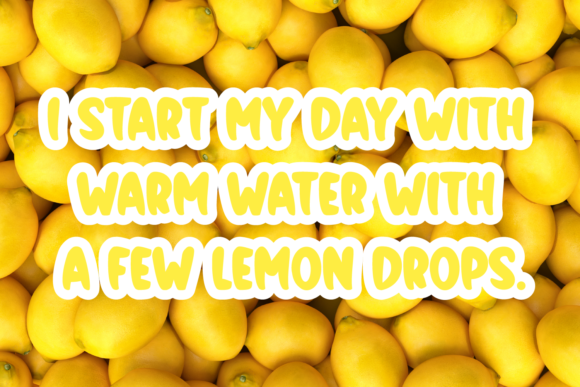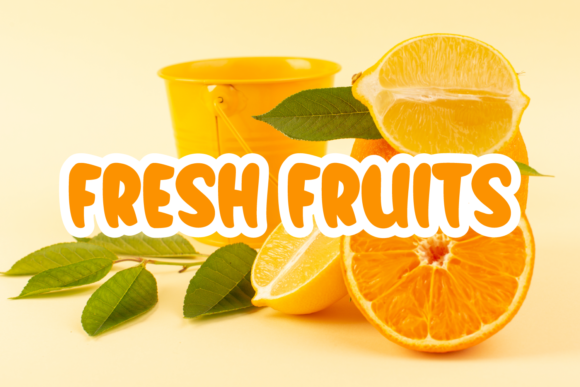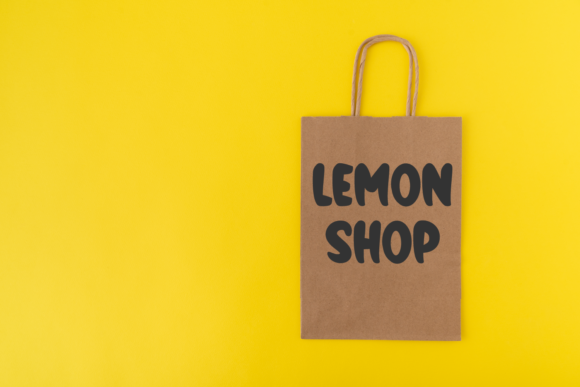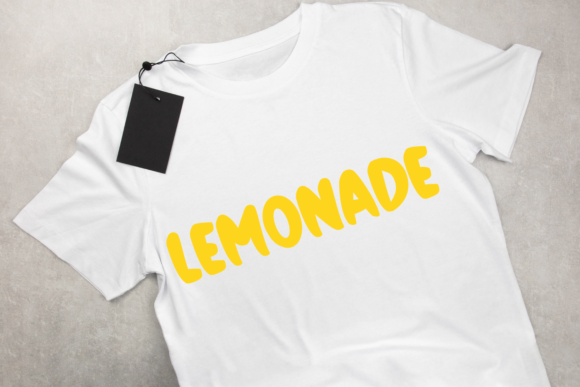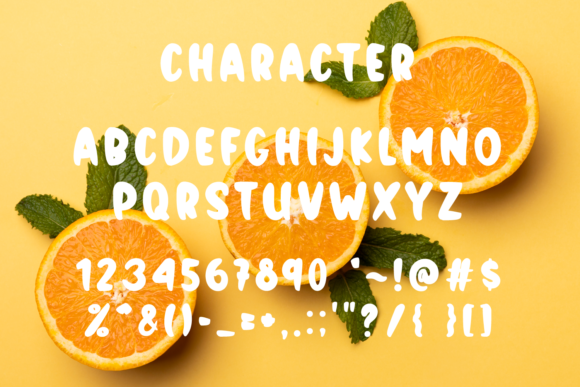
Introduction to Magic Lemon Font
Magic Lemon is a chubby and fun display font.
It embodies playfulness and authenticity and is the perfect choice for any children activity or school project .
Key Features of Magic Lemon Font